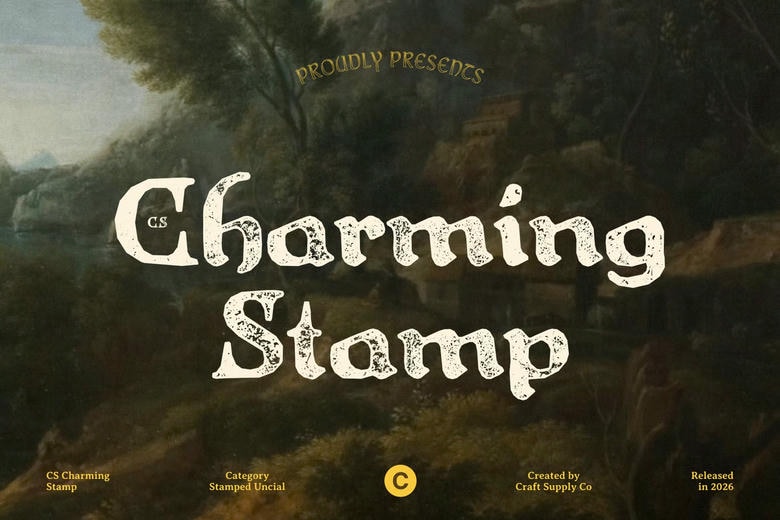
Charming Stamp Font
Charming Stamp Font brings together uncial elegance and vintage texture. Inspired by the graceful uncial lettering found in medieval manuscripts, this classic display font features rounded shapes, smooth curves, and bold strokes that reflect the beauty of historical handwriting. The added stamp effect gives it a textured, vintage look, similar to aged ink and traditional printing.
This font works well for wedding invitations, book covers, heritage branding, greeting cards, and vintage-inspired designs. Its mix of medieval elegance and handcrafted texture adds a special touch to any project. The uncial style and stamped look give it a timeless, artistic feel with plenty of historical charm.
Charming Stamp Blackletter Font